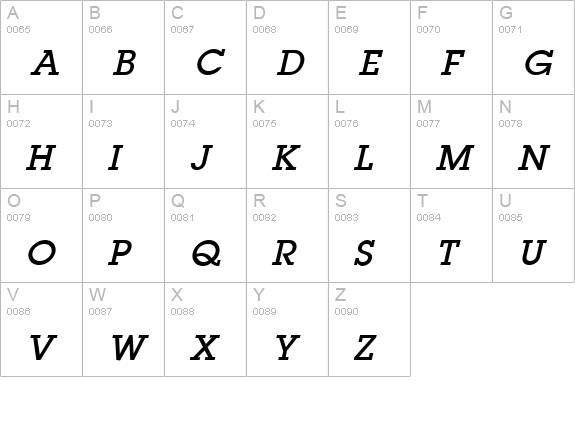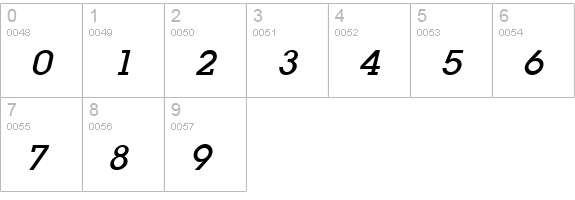
Lapland Demibold Italic is a sub-bold, structured, italic variant in the Lapland typeface family \xE2\x80\x94 well suited to sub-headlines and emphasised passages.
Lapland Demibold Italic font is a stunning typeface that effortlessly combines elegance with a touch of boldness. Its distinctive characteristics make it perfect for a wide range of design projects, from professional branding to creative endeavors. With its sleek and curved forms, Lapland Demibold Italic exudes a sense of sophistication and modernity. Each letter has been meticulously crafted to create a harmonious balance between sleek lines and subtle curves, resulting in a visually striking and eye-catching font. What sets Lapland Demibold Italic font apart is not only its impeccable design, but also its versatility. It can effortlessly adapt to various styles and themes, making it an excellent choice for both digital and print media. Whether you're designing a logo, creating a website, or crafting a stunning poster, this font is a powerful tool that will elevate your work to new heights. And the best part? Lapland Demibold Italic font is available for free download at FontsMarket.com. Yes, you read that right - this remarkable font can be yours without any cost. FontsMarket.com is a trusted source for high-quality fonts, and you can easily access and download Lapland Demibold Italic font with just a few clicks. So, why settle for ordinary when you can have extraordinary? With Lapland Demibold Italic font, your designs will stand out from the crowd, leaving a lasting impression on your audience. Experience the beauty and versatility of this font and let your creativity soar. Download Lapland Demibold Italic font today and unlock a world of endless design possibilities.